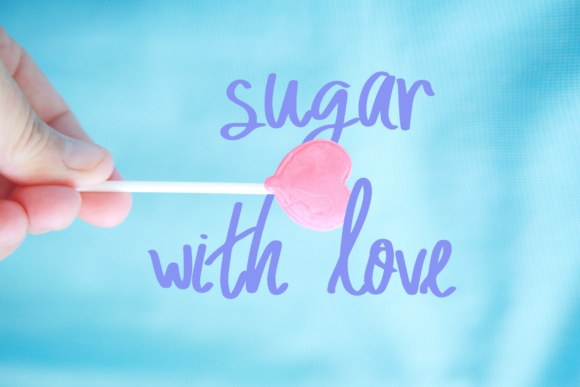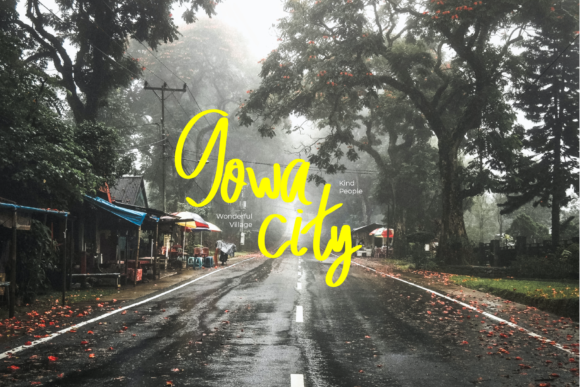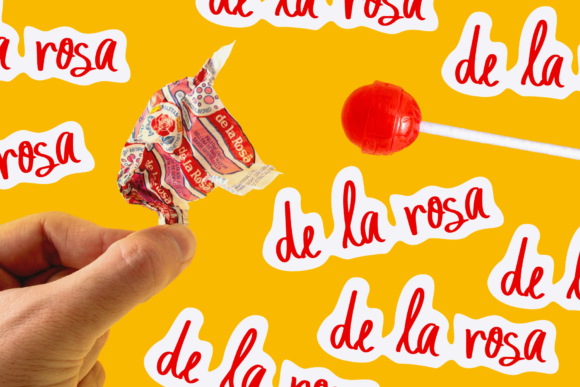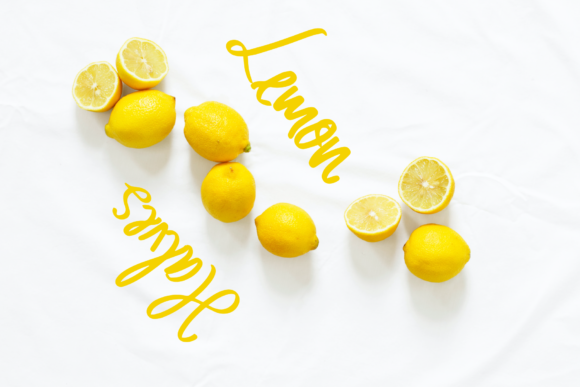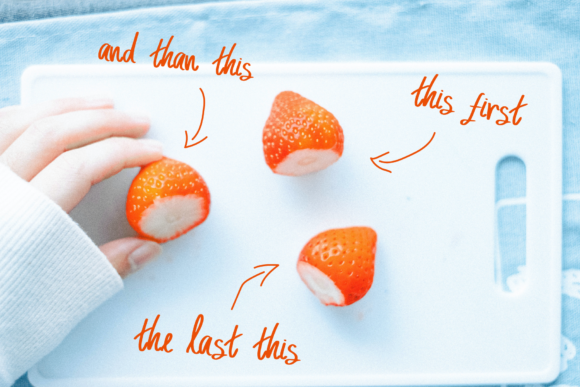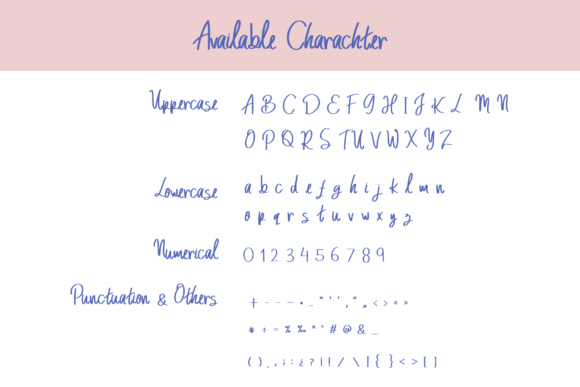
Introduction to Malino Candy Font
As designers, we’ve all been there – staring at a blank canvas, trying to bring our creative vision to life. The right font can make all the difference, elevating a design from bland to grand. For those looking to add a touch of sweetness to their next project, we’re excited to introduce you to the Malino Candy Font – a delightful, handwritten font that’s sure to captivate your audience.
This lovely font boasts a high-quality design that’s perfect for any creative project, from wedding invitations to social media graphics. With its elegant curves and playful charm, Malino Candy Font is an invaluable addition to any designer’s library. And the best part? It’s available for free download, making it an accessible design resource for all.
Whether you’re working on a design with a transparent background or looking for a font that will stand out from the crowd, Malino Candy Font is a versatile choice that’s sure to impress. Its versatility and beauty make it a valuable asset for designers of all levels, and we can’t wait to see the amazing creations it inspires.
Key Features of Malino Candy Font
- High-quality design perfect for creative projects, including digital art, graphics, and more.
- Unique, hand-drawn style with a transparent background, allowing for easy customization and layering.
- Perfect for adding a touch of whimsy and personality to your designs, making it an ideal choice for creative projects.
Honest Review: Malino Candy Font
As a designer, I’m always on the lookout for high-quality design resources to elevate my creative projects. The Malino Candy Font caught my attention with its playful and whimsical vibe, making it a perfect addition to any project that needs a touch of sweetness.
What works well about the Malino Candy Font is its versatility. It comes with a transparent background, making it easy to use on any design element, from graphics to logos. The font is also free to download, which is a major plus for designers on a budget. Additionally, the font’s high quality ensures that it will look great on any screen size or resolution.
- High-quality, transparent background
- Perfect for creative projects, such as food blogs or kids’ entertainment
While the Malino Candy Font is a great addition to any design project, I do wish it came in more styles or variations to make it more comprehensive. ⚠️ Additionally, the font may not be suitable for all types of projects, such as formal business or corporate designs.
Overall, I’m impressed with the Malino Candy Font and would definitely recommend it to designers looking for a fun and playful font for their creative projects. ✨ With its high quality, free download, and transparent background, it’s a valuable resource to have in your design arsenal.
The Malino Candy Font is commonly used for food-related designs, such as recipe cards, menus, and packaging. It’s also suitable for wedding invitations, party decorations, and other creative projects that require a playful and sweet design element.
To get the most out of the Malino Candy Font, use it in combination with other design elements, such as bright colors and fun illustrations. Experiment with different font sizes and styles to create a unique and eye-catching design.